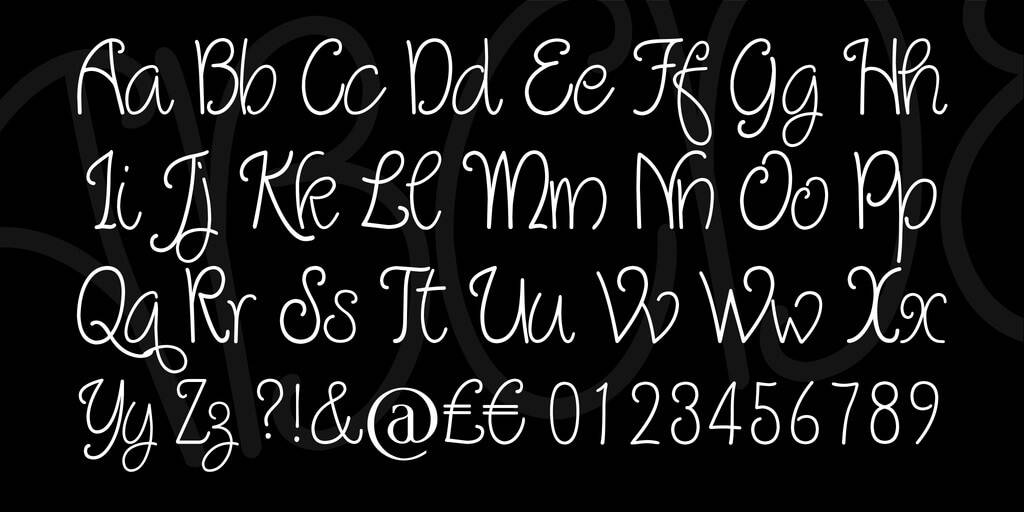
Quirlycues Font
Quirlycues is a high-end handwritten and script typeface. Qwerks created the font, which is accessible for personal use for free. All uppercase and lowercase letters and a few special characters are included in the free version. Quirlycues is the font family for this font. Regular is the font’s subfamily. Quirlycues: Version 1.00 is the font’s unique subfamily identity. Quirlycues is the full name of this font. Quirlycues is the Postscript font name for this font. The Family class of this font is Scripts. The Weight of this font is Light.
Quirlycues Font is great for logos, branding, invites, stationery, wedding designs, logos, business cards, covers, t-shirts, and social media posts, among other things. It will also be used to create a beautiful image and text in many colours and styles. The typeface does an excellent job of mimicking printing, making it appear as if it were written by hand.
Quirlycues Font View